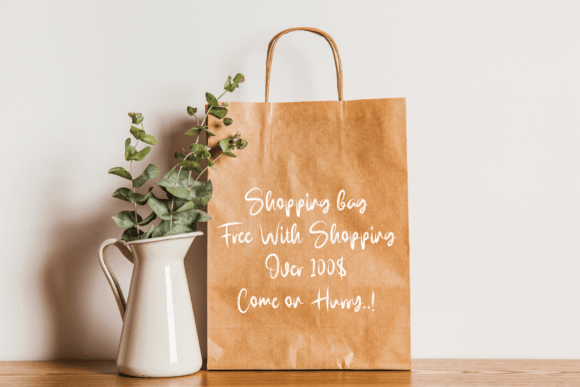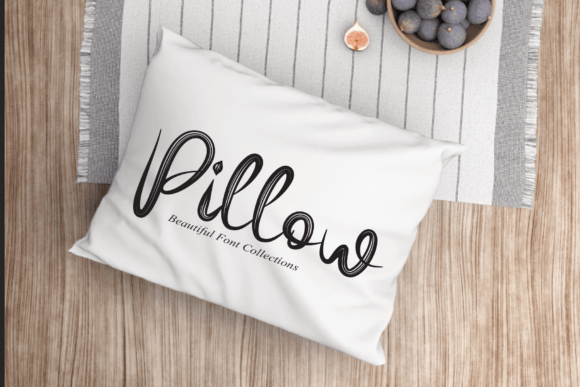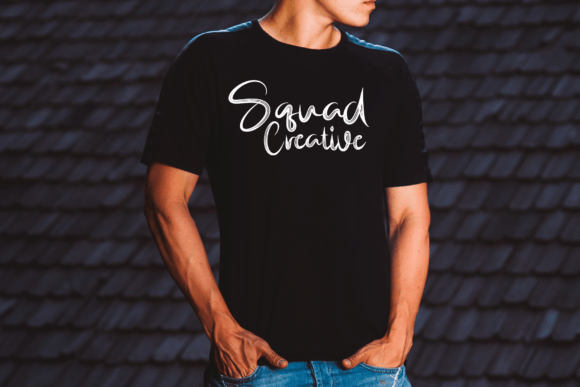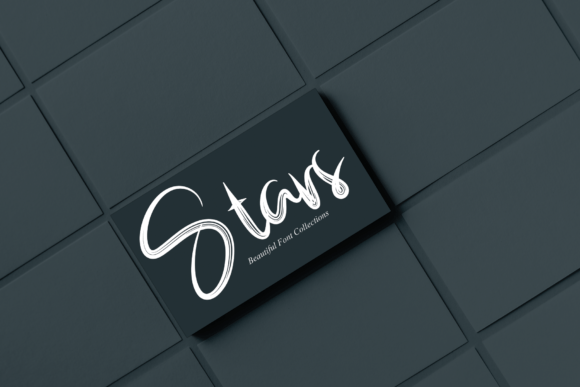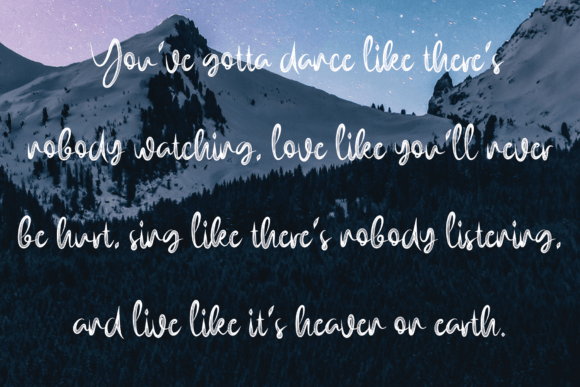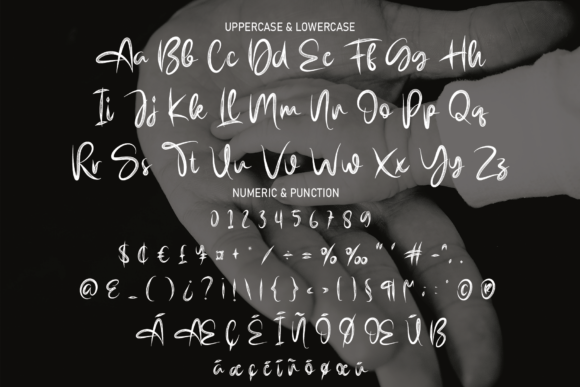
The Perfect Gift: Discovering the Fatherday Font
I’ll never forget the time I was working on a project for a client’s Father’s Day campaign. I had all the design elements in place, but something was missing – the perfect font. I scoured the internet, tried out dozens of fonts, but none seemed quite right. That was until I stumbled upon the Fatherday Font. It was love at first sight! 💕
As a designer, I’m always on the lookout for fonts that can add a special touch to my projects. And, let me tell you, Fatherday Font delivers. In this article, I’ll share my experience with this beautiful handwritten font, its features, and how to make the most of it in your designs.
- ✨ Unique and elegant handwritten style: Fatherday Font has a distinct, cursive feel that’s perfect for creating eye-catching designs.
- ✅ Highly versatile: Use it for wall displays, wedding invitations, social media posts, logos, advertisements, product packaging, and more.
- 💫 Excellent for branding and advertising: The font’s elegant style makes it perfect for creating professional-looking designs that stand out.
⚠️ While Fatherday Font is an excellent choice for many projects, it’s not suitable for very small text sizes or body text. Its elegant style is best appreciated in larger sizes.
🤔 Some users may find the font’s cursive style challenging to read in certain contexts. However, this is a minor limitation that can be easily worked around with careful design choices.
- Experiment with OpenType features like ligatures and stylistic alternates to add a personal touch to your design.
The Story Behind Fatherday Font
While the origins of Fatherday Font are unclear, it’s easy to imagine that it was created with love and care. Perhaps a designer, inspired by their own father’s story, set out to create a font that would capture the essence of family and celebration. Whatever its origins, Fatherday Font is a true gem that deserves to be shared with the world.
Q: What is the personality of Fatherday Font?
A: Fatherday Font has an elegant, cursive style that’s perfect for creating sophisticated designs.
Q: Is Fatherday Font easy to read?
A: While Fatherday Font is elegant and beautiful, it may be challenging to read in small sizes or in certain contexts. Use it in larger sizes or for display text for best results.